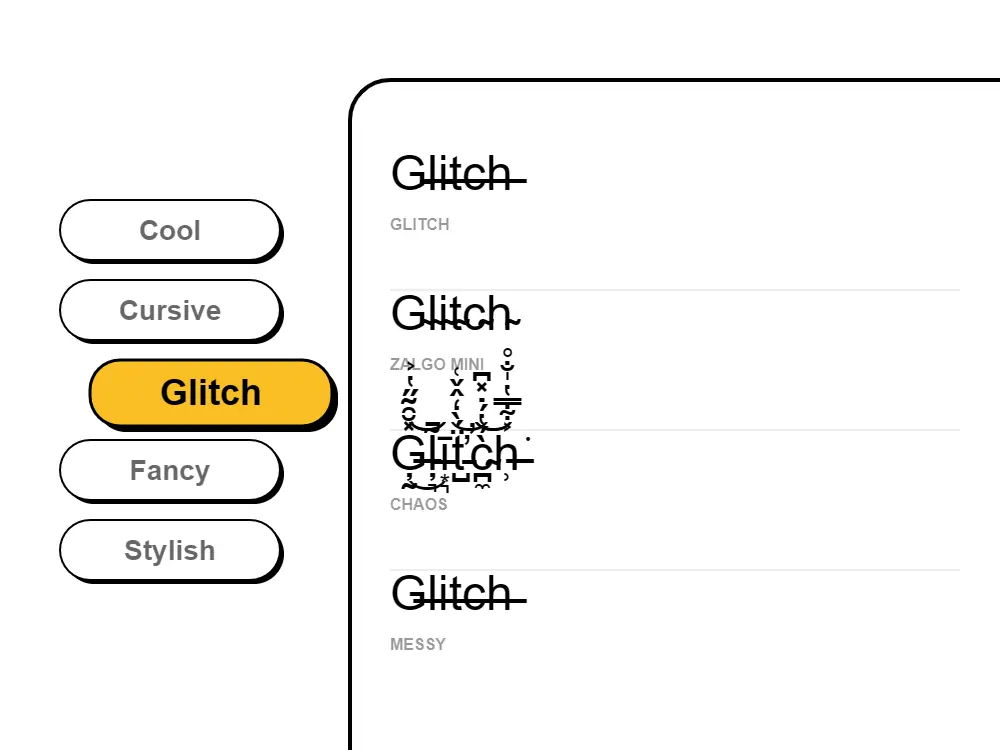
Glitch Text Generator
Distorted cyberpunk and hacker-style text for gaming, tech, and aesthetic posts. Copy and paste glitch fonts free — works on Discord, Instagram, and everywhere.
Glitch Font Styles for
Every Platform.
Create glitch text for cyberpunk and gaming aesthetics — copy paste free! Our glitch text generator makes corrupted fonts, matrix-style letters, hacker text, and distorted text effects. Get glitch text for Discord usernames, Roblox display names, Steam profiles, Twitch bios, and Instagram captions. Copy paste glitch fonts for gaming, tech, and cyberpunk content. The best free glitch font generator with futuristic, hacker, and distortion text styles — updated 2026.
Choose from clean digital distortion to intense cyberpunk corruption. Subtle glitch works for tech aesthetic bios; heavy glitch is perfect for gaming usernames, Discord server names, and horror content.
Glitch text turns ordinary words into a digital distortion effect — the visual language of hackers, cyberpunk aesthetics, corrupted data, and dystopian storytelling. Our glitch text generator creates corrupted, fragmented text effects that look like they've been pulled from a broken system or a sci-fi screen. Perfect for Discord usernames and server names, gaming gamertags on Roblox and Steam, streaming bio text on Twitch and Kick, tech content creator profiles, cybersecurity and hacker aesthetic accounts, and anyone who wants their profile to look like a cinematic visual hack. Glitch text ranges from subtle digital distortion — just enough to look stylized and tech-forward — to heavy cyberpunk corruption that makes text barely readable in the best possible way.
Every glitch font variant uses Unicode combining diacritical marks to stack distortion characters over your text — so glitch text is actual Unicode text, not an image. That means it copies and pastes perfectly into Discord usernames and nicknames, Twitch bios, Reddit posts, Twitter/X handles, Instagram captions, Roblox display names, Steam profile names, and any platform that supports Unicode. Lighter glitch styles (subtle digital distortion) are the safest choice for platform usernames and bios where heavy combining marks may be filtered. Intense glitch styles work great in Reddit comments, Twitter posts, and Discord messages where rendering is more permissive. Type your text, pick your glitch style, copy, and paste anywhere.
How Does Glitch Text Work? (The Unicode Explanation)
Glitch text uses a specific feature of Unicode called combining diacritical marks — characters designed to stack above and below other characters. Examples include the combining grave accent, the combining tilde, and hundreds of similar marks. In normal text, these appear over letters to create accents like é, ñ, or ü. In glitch text, the generator stacks many of these marks simultaneously — both above and below the base letter — creating the appearance of corrupted, overflowing, broken text. Because combining diacritics are standard Unicode and supported by every font rendering system, glitch text works on every platform that displays Unicode: Discord, Twitter, Reddit, Instagram, Roblox, Steam, and more. The text looks visually corrupted but is technically just normal Unicode — which is why it pastes and displays correctly everywhere without any special app or font. The key difference between glitch text and Zalgo text: glitch text uses a moderate number of combining marks to create a readable-but-distorted aesthetic. Zalgo text (from the internet horror meme) stacks combining marks to the extreme, producing characters that overflow their line boundaries and look genuinely unreadable. Fontb has both — use the glitch generator for gaming and cyberpunk aesthetics, and the Zalgo generator for full horror effects.
What creates the glitch text effect and why does it look broken?
Glitch text uses Unicode combining diacritical marks — characters designed to stack above and below other characters to create accents like é or ñ. Our glitch text generator stacks many of these combining marks simultaneously above and below every letter, creating the visual effect of overflowing, corrupted, or distorted text. Because combining marks are standard Unicode, glitch text works on any platform that supports Unicode: Discord, Twitter, Instagram, Roblox, Steam, Reddit, and more. The text looks broken but is technically valid Unicode — which is why it copies and pastes perfectly everywhere.
Does glitch text work on Discord without Nitro?
Yes — glitch text works on Discord with no Nitro subscription needed. Because glitch text is made from standard Unicode characters (not custom fonts or Nitro features), it works for all Discord users in usernames, server names, channel names, nicknames, and message content. To set your Discord username to glitch text: generate it here, copy, open Discord → Settings → Edit profile, and paste.
Can I use glitch text for gaming usernames on Roblox, Steam, or Discord?
Yes — glitch text works as a gaming username on most platforms. Discord nicknames and server names support glitch text fully. Steam profile names accept Unicode characters including light glitch styles. Roblox display names accept many Unicode characters, though very heavy combining marks may be filtered — if one glitch style doesn't work in Roblox, try a lighter version with fewer combining marks. Avoid extreme Zalgo-style glitch for Roblox and use subtle or medium intensity instead.
What are the most popular uses for glitch text?
Glitch text is most popular for: Discord server names and usernames for gaming, cybersecurity, and tech communities; streaming bios on Twitch and Kick; gaming usernames on Roblox, Steam, and PC games; cyberpunk, vaporwave, and synthwave aesthetic content on Instagram and TikTok; horror and creepypasta content; tech brand names and startup handles; and any online identity that wants to signal hacker-culture, digital-native, or sci-fi aesthetics.